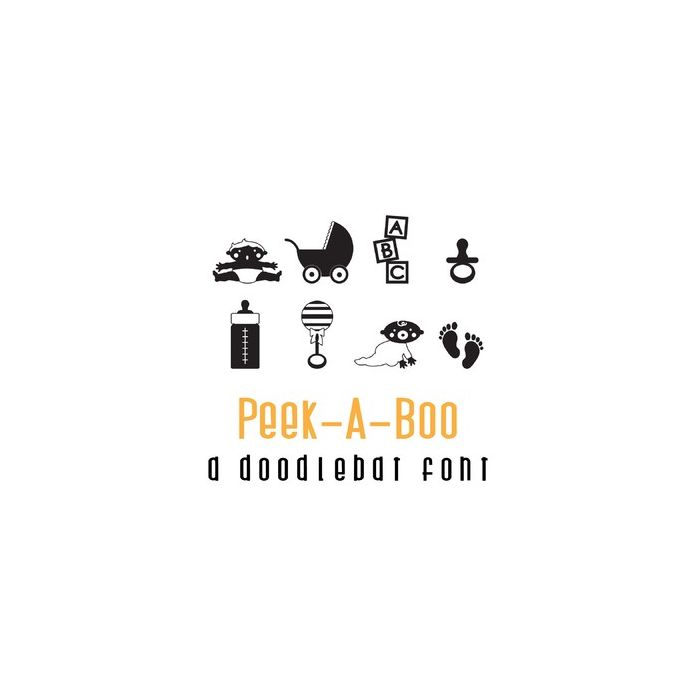
peek-a-boo doodlebat font
This fun doodlebat font features 26 baby images. Perfect for cards, gifts, decor, crafts, scrap book pages, planner stickers and more!